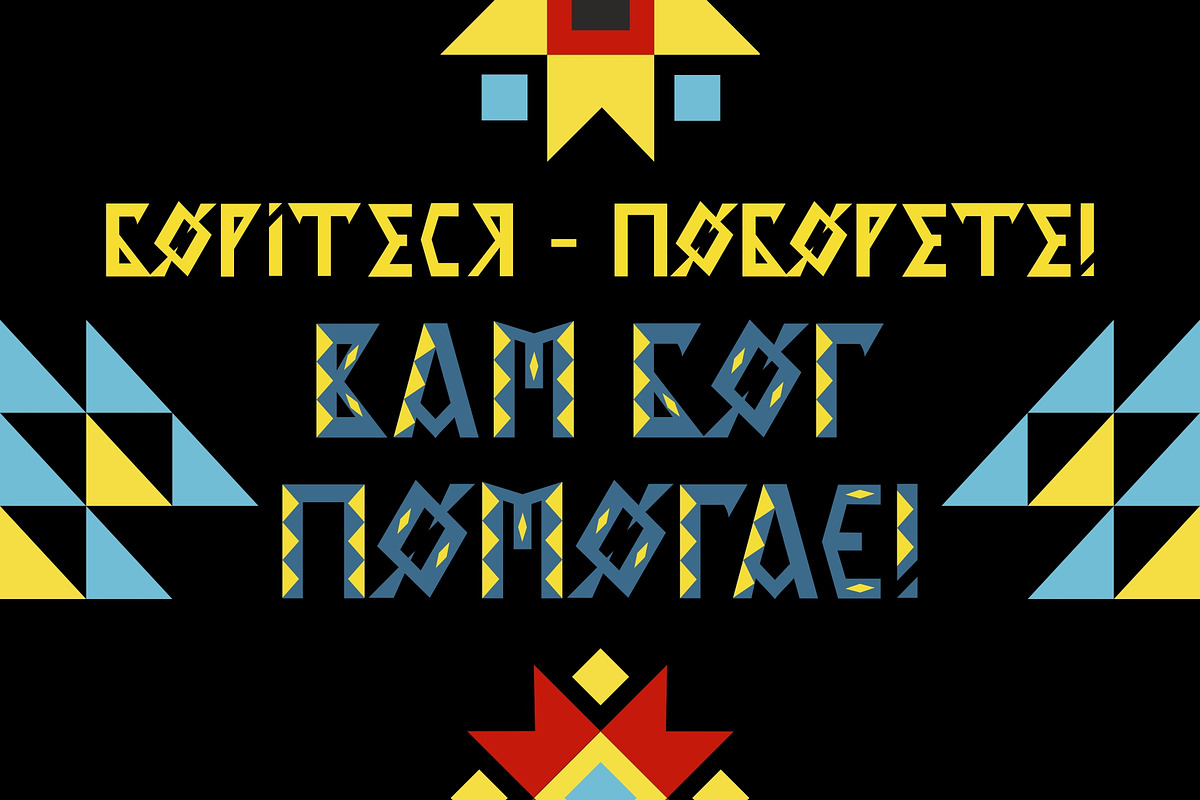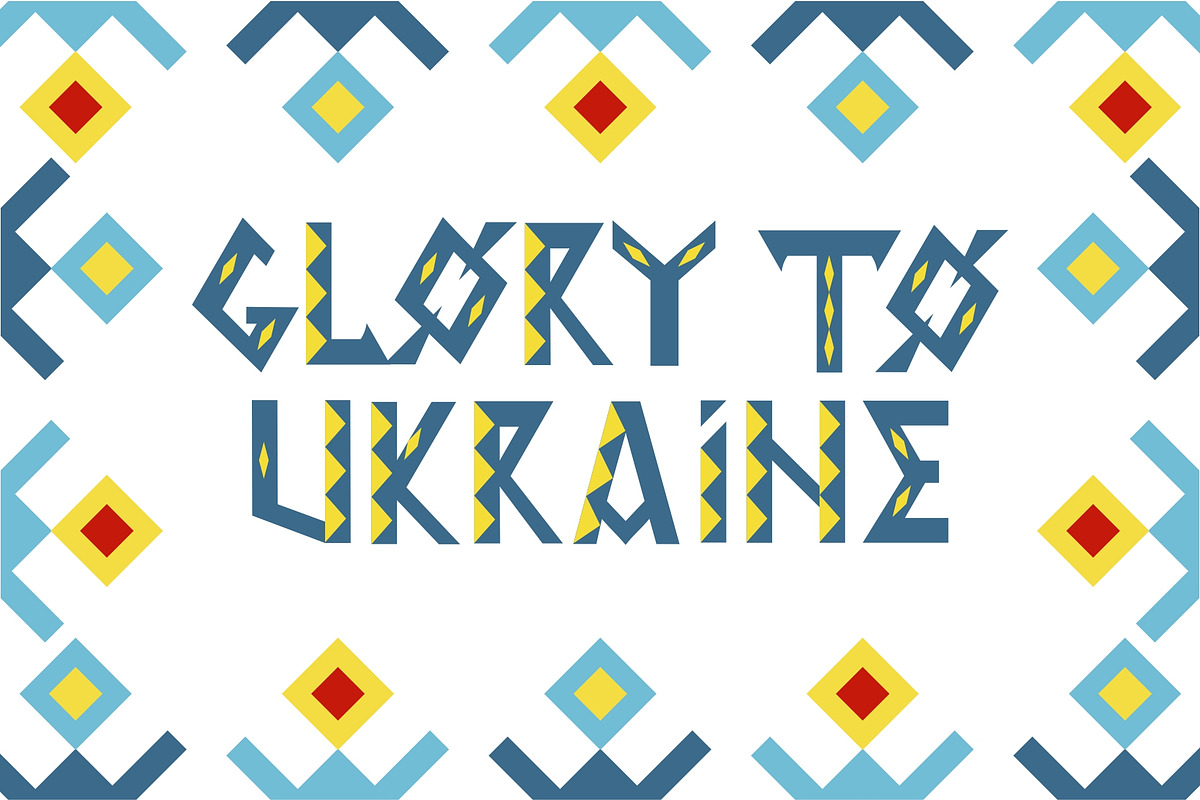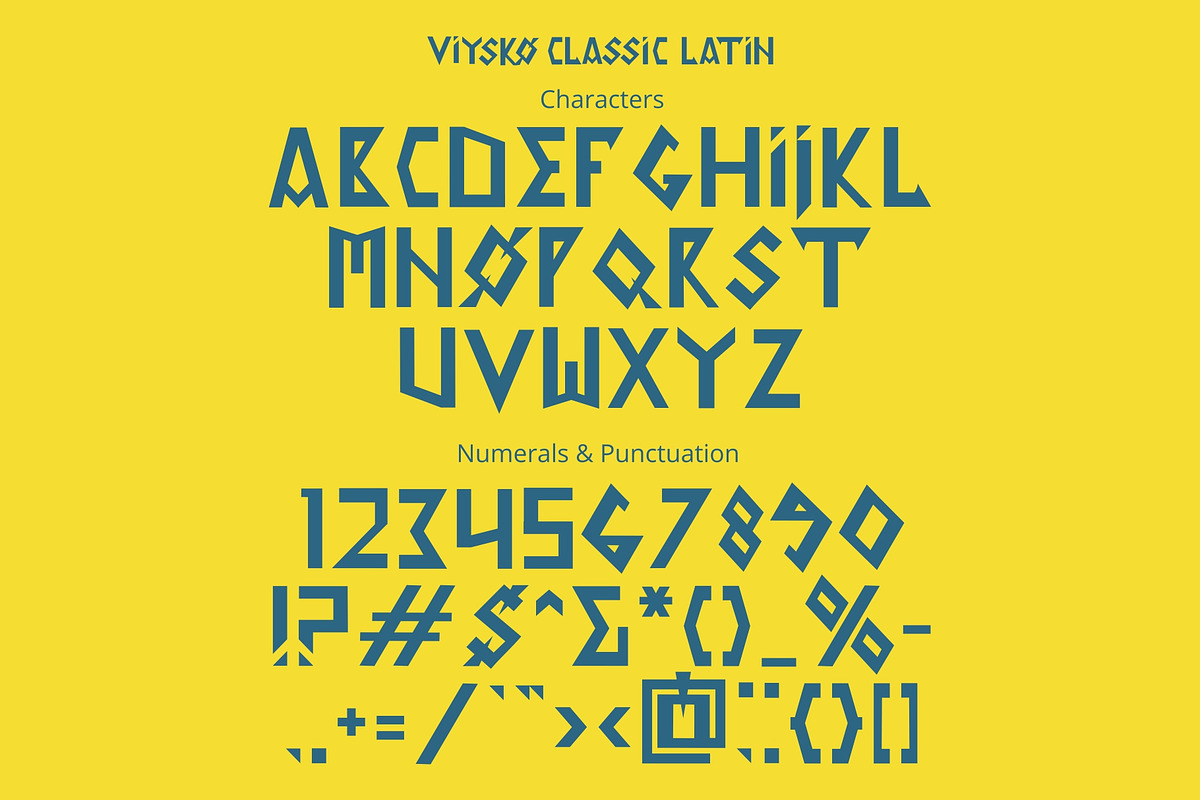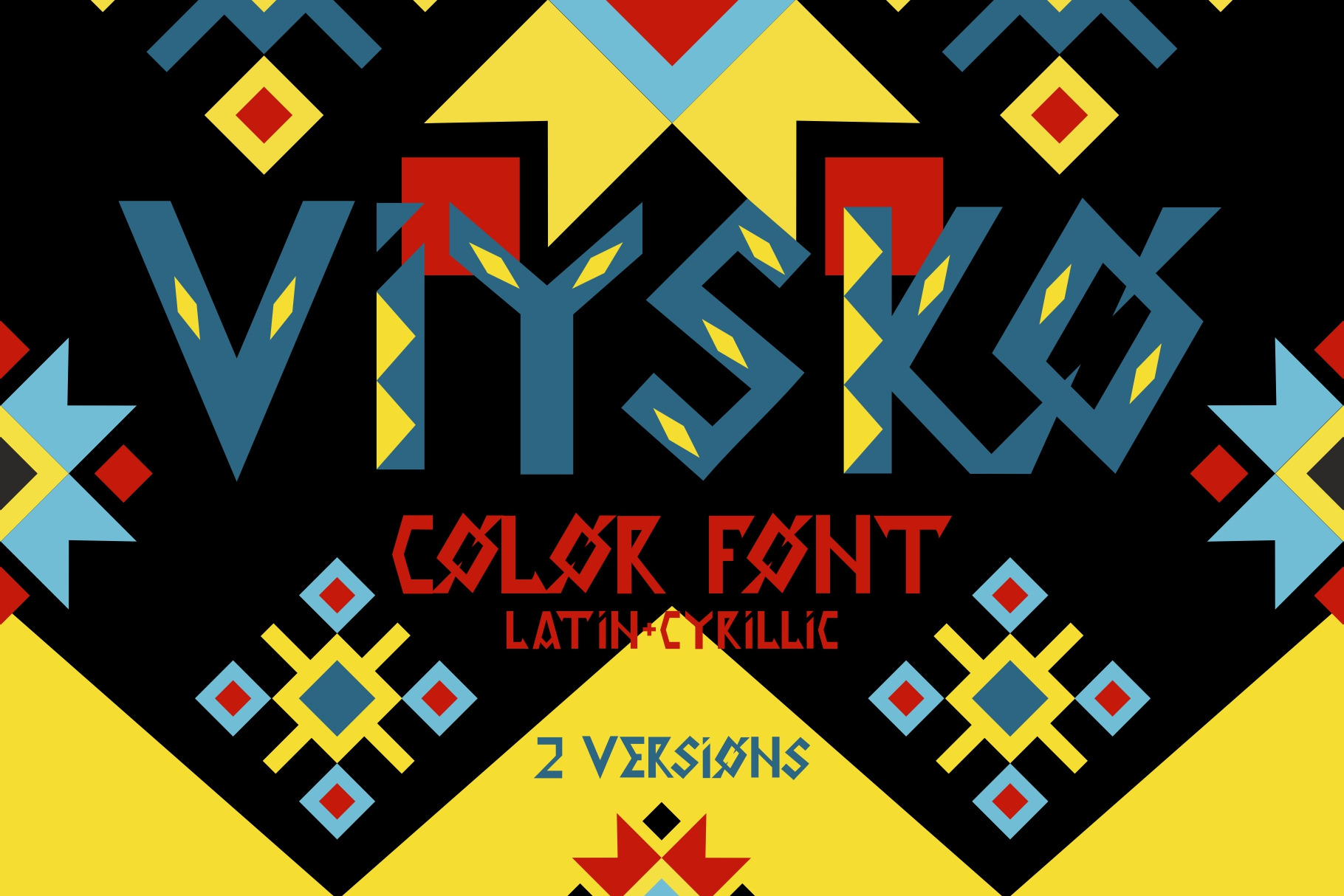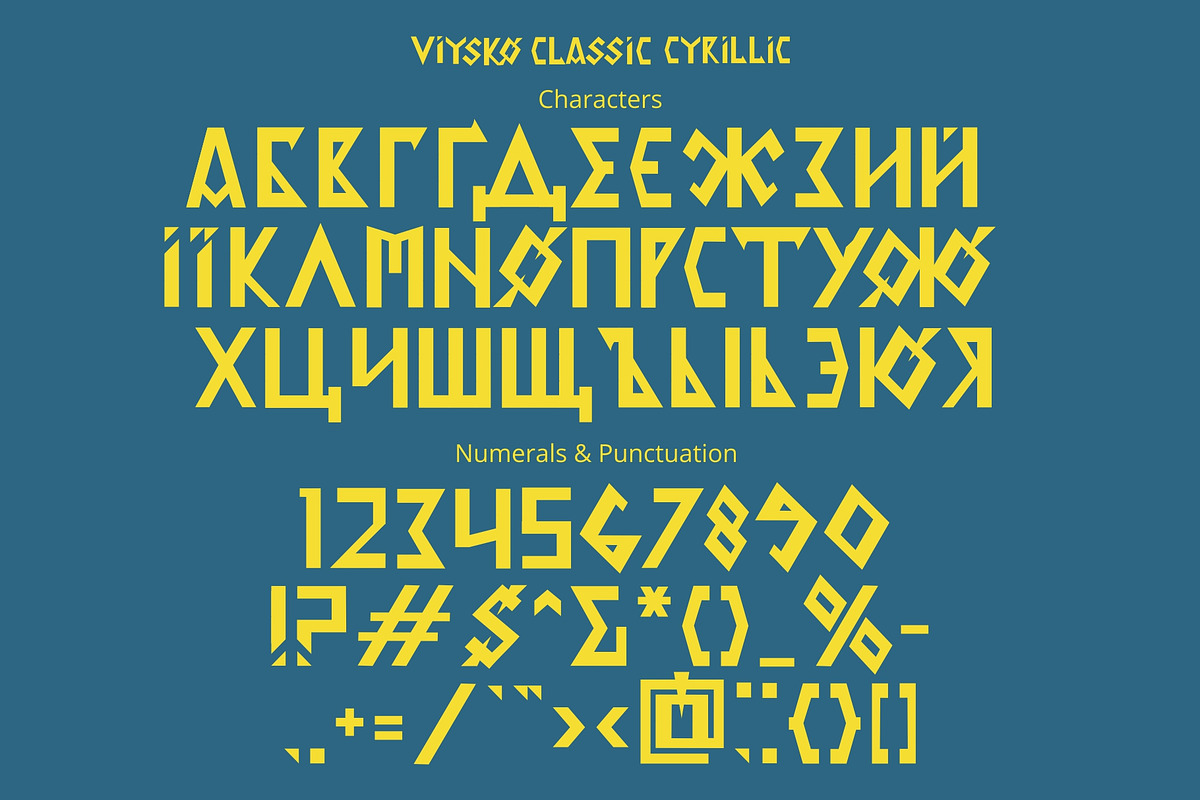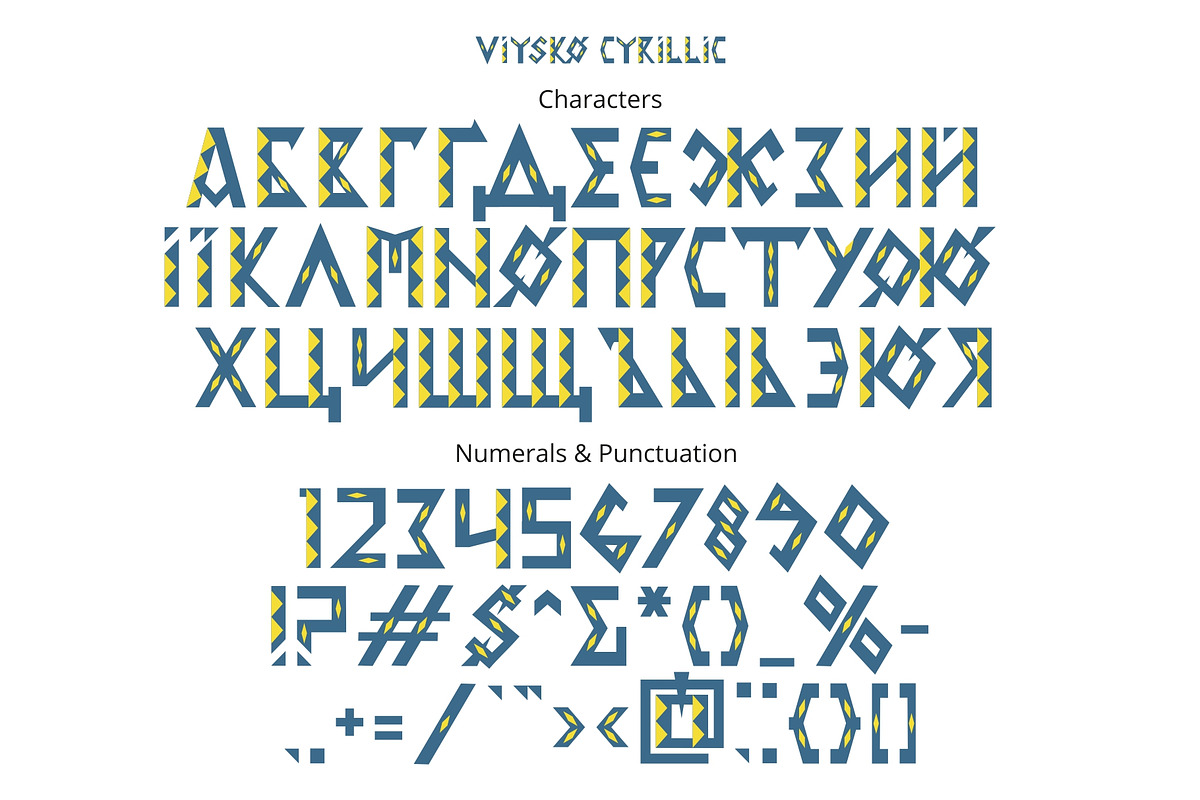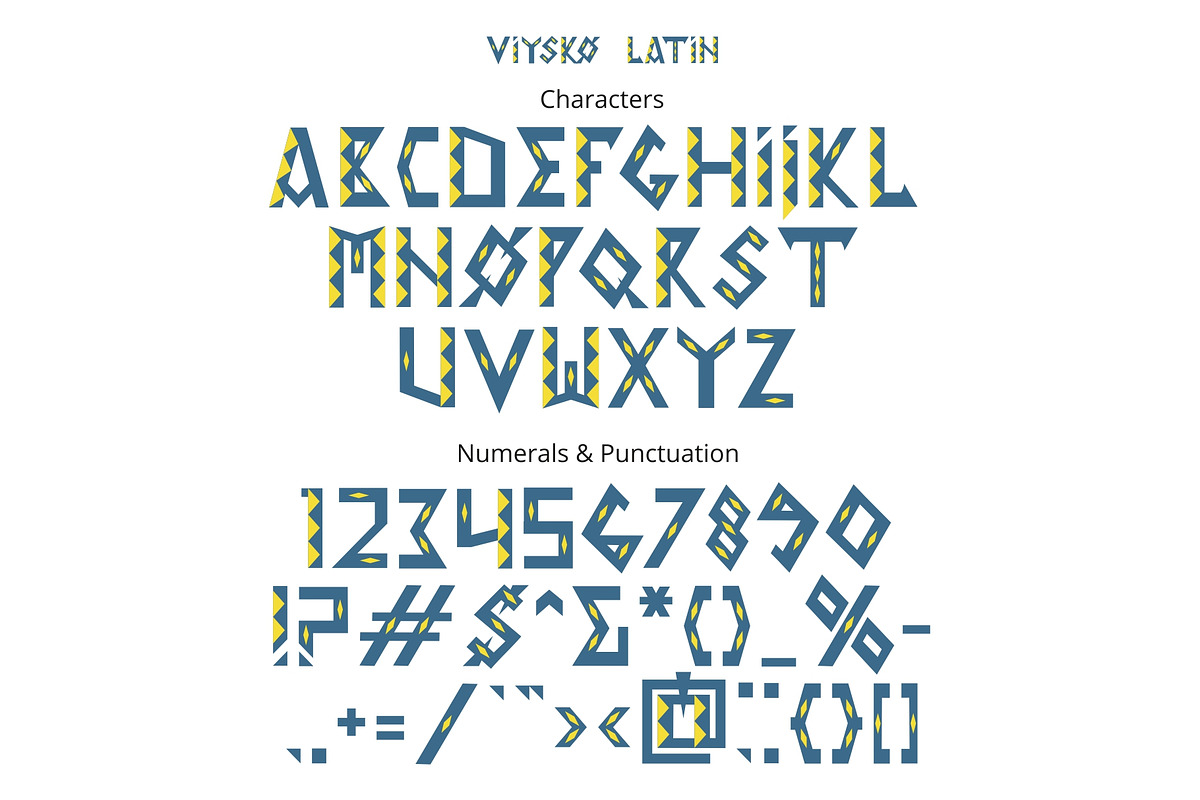
Viysko color font
Viysko - is a color font with a Ukrainian character, dedicated to all the brave warriors of our country who are currently fighting for our state. This font was inspired by the 1938 book cover created by Mykola Bytynsky. He was a Ukrainian herald, falerist, poet, novelist, publicist, art critic, researcher and developer of emblems and uniforms, wrote a number of studies in these disciplines, as a graphic artist created many works of art, left behind paintings, book illustrations, icons, icons, worked fields, wrote poems, memoirs. The font includes Latin and Cyrillic letters! It has two versions - color and classic versions.
Standard characters A-Z, 0-9,and punctuation + classic version for the Latin Basic and Western European set, Cyrillic А-Я set. Thanks and Enjoy!